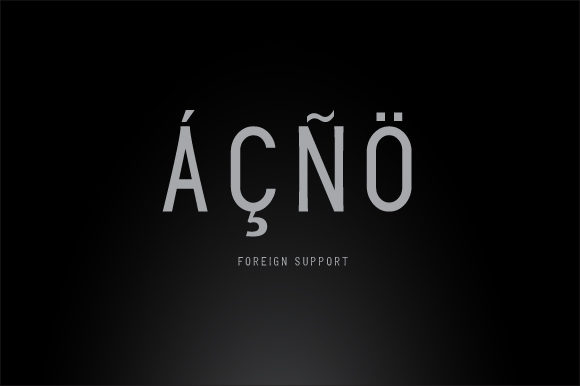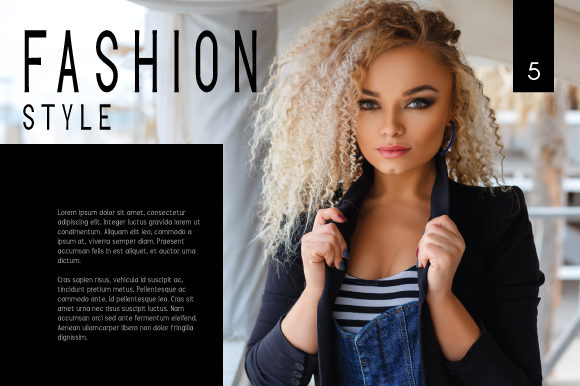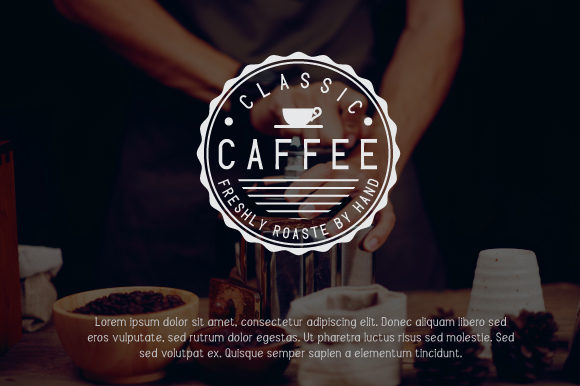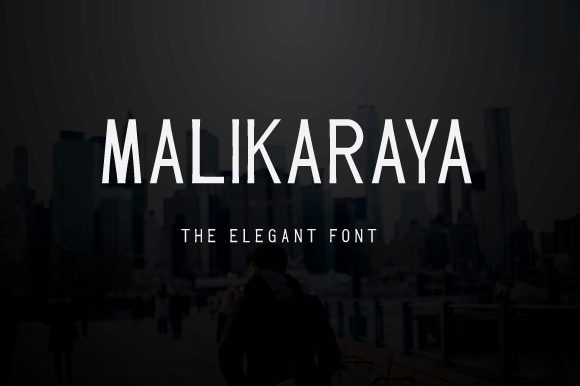
Malikaraya Font
The Malikaraya is a modern sans serif font. It has a clean style which can be used for branding, book titles, content of books or fashion magazines, and much more!